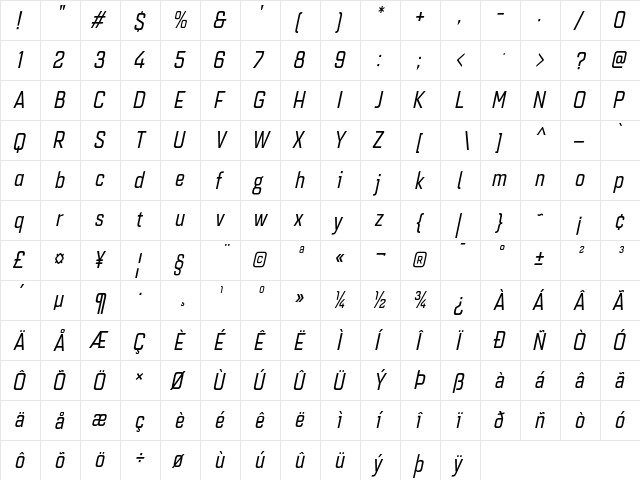
Quarca Cond Regular Italic Font Preview
Design Context for Quarca Typeface
Quarca takes a measured approach to typography — its balanced proportions and neutral character make it a reliable workhorse for both digital and print work. The dynamic lean of this cut emphasises speed and emphasis in any layout. The condensed width makes it efficient for tight spaces without sacrificing legibility.
Pro Tip: Try Quarca for annotation and caption copy alongside an upright companion — the contrast in angle creates a dynamic but ordered typographic system.